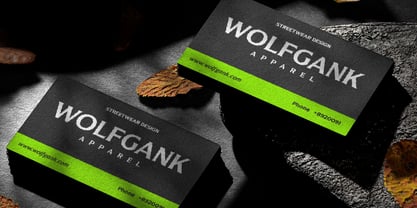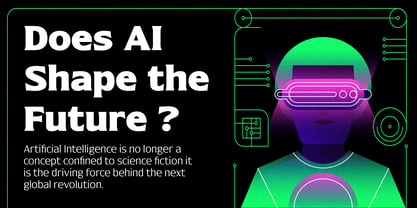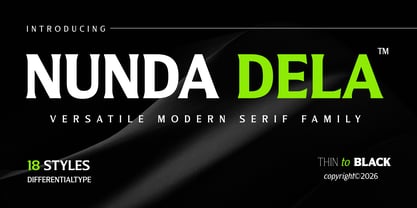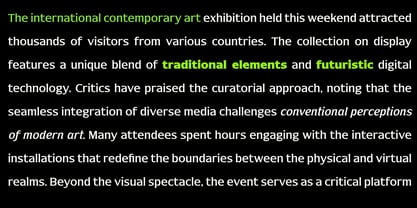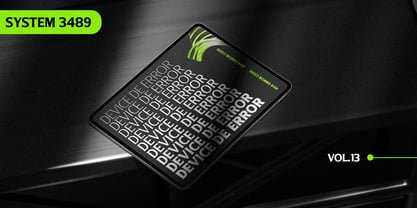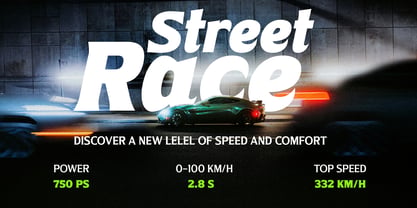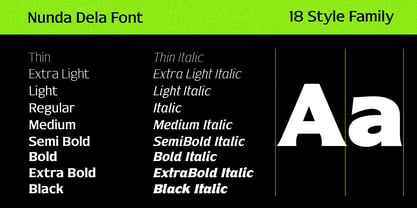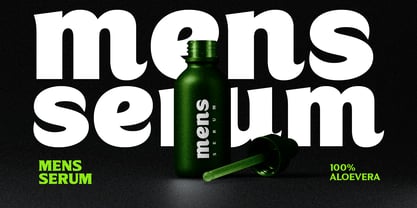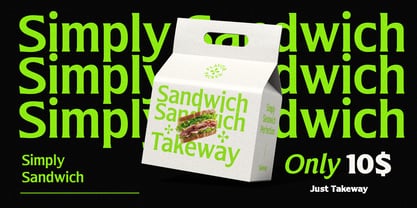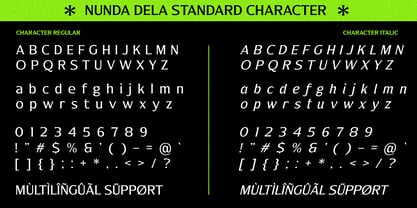
Nunda Dela
by Differentialtype
The Nunda Dela Font Family was designed by Sidik Sidik and published by Differentialtype. Nunda Dela contains 18 styles and family package options. More about this family
Introducing Nunda Dela, a versatile modern serif font family designed with care and precision. This font strikes the perfect balance between timeless elegance and contemporary sharpness. Designed to adapt to any creative vision, Nunda Dela features a variety of 18 distinct styles—from the refined and elegant Thin to the powerful and authoritative Black.
Whether you're designing high-end editorial layouts, luxury branding, or bold headlines, Nunda Dela provides the typographic range needed to elevate your project. With its refined serifs and balanced proportions, it's more than just a font; it's a complete design system built for modern creators who refuse to compromise on style or substance.